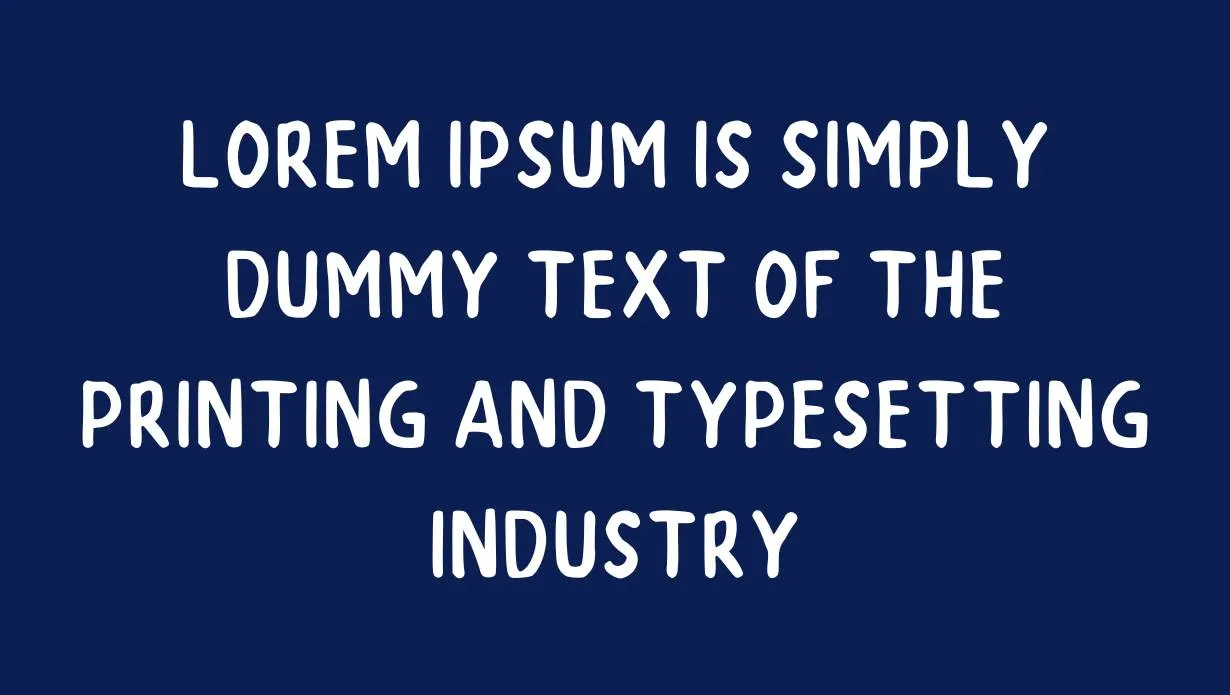
Super Font is a bold, comic book-inspired typeface with a dynamic and action-packed feel. It’s all about conveying the excitement of superhero stories.
Use it in comic books, superhero merchandise, or any project that needs to capture the essence of larger-than-life adventures. This comic font is designed by Michael Bagnardi. You can download this font in OTF and TTF file versions.
Super Font Family
| Name | Super Font |
| Designer | Michael Bagnardi |